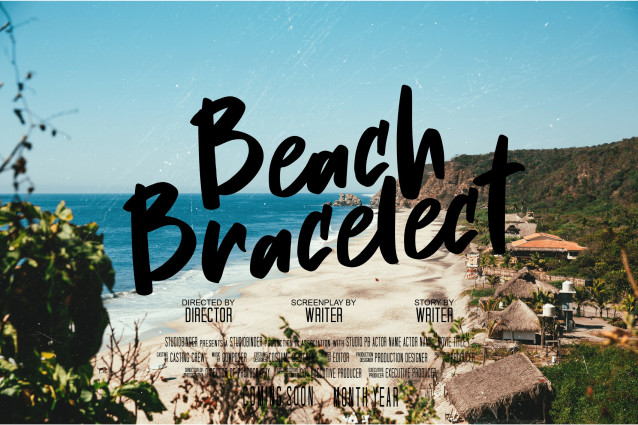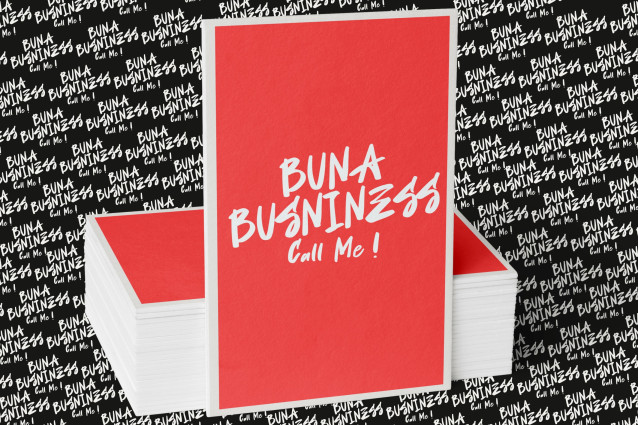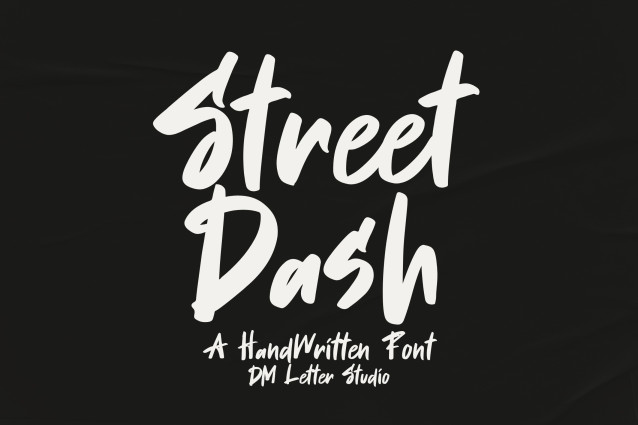
Street Dash Font
Street Dash Font is a fast-paced handwritten font with urban energy and rebellious flair. With quick, confident strokes and a freestyle rhythm, it captures the raw expression of street art and modern casual lettering. Whether you’re designing merch, social media content, or urban branding, Street Dash adds a bold personal touch with streetwise attitude.